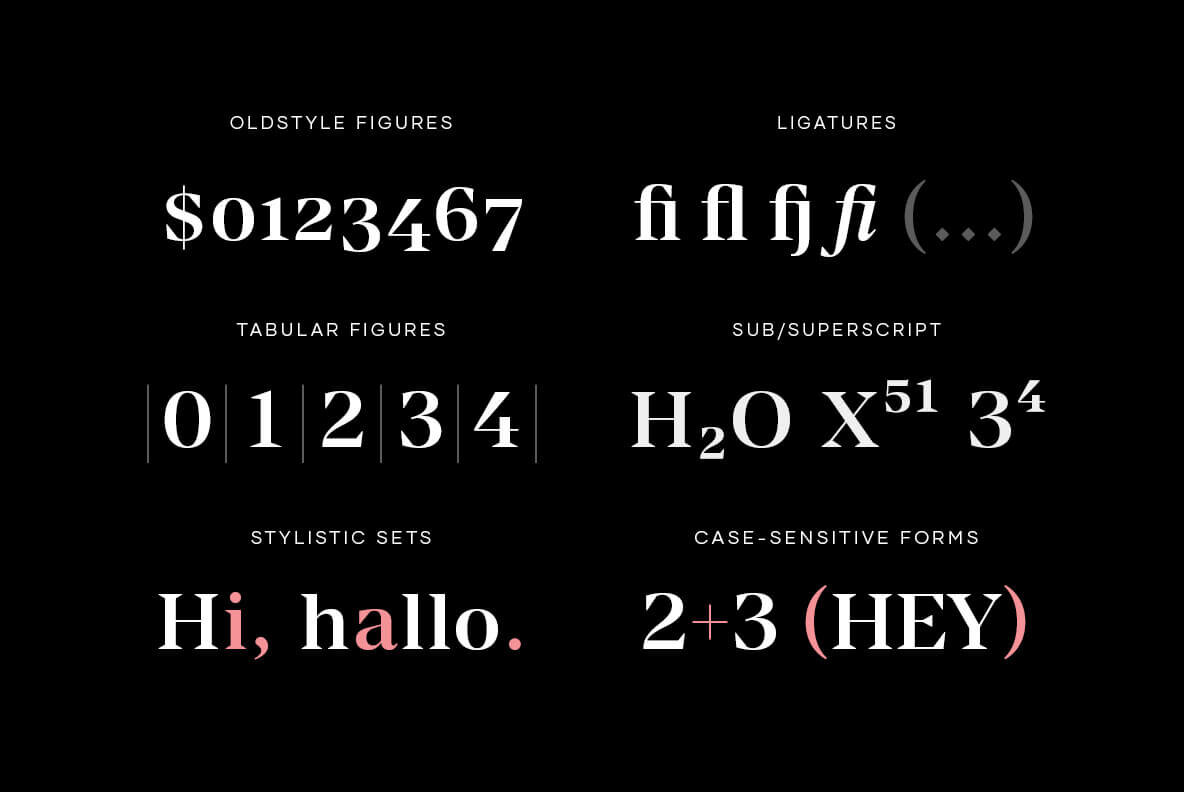
Manier Font
Manier is a fresh, display, wedge-serif font family inspired by transitional and contemporary typefaces. Manier has a big x-height value, modern proportions, sharp serifs, and an extreme stroke contrast with a vertical stress. The typeface is a great choice for headlines, titles, posters, and branding but can be also successfully used in small articles and occasional texts.
- Italics added
- 6 Weights (Thin, Light, Regular, Medium, Bold, Heavy)
- Improved spacing and kerning
- Corrected some curves
- Improved ligatures
- Corrected parentheses
- Improved diacritical marks
- Stylistic Sets (round dots), Stylistic Alternates (a, zero oldstyle)
- Contextual Alternates (when letters collide)
- Case-Sensitive Forms
- Oldstyle Currencies
- Capital German Eszett